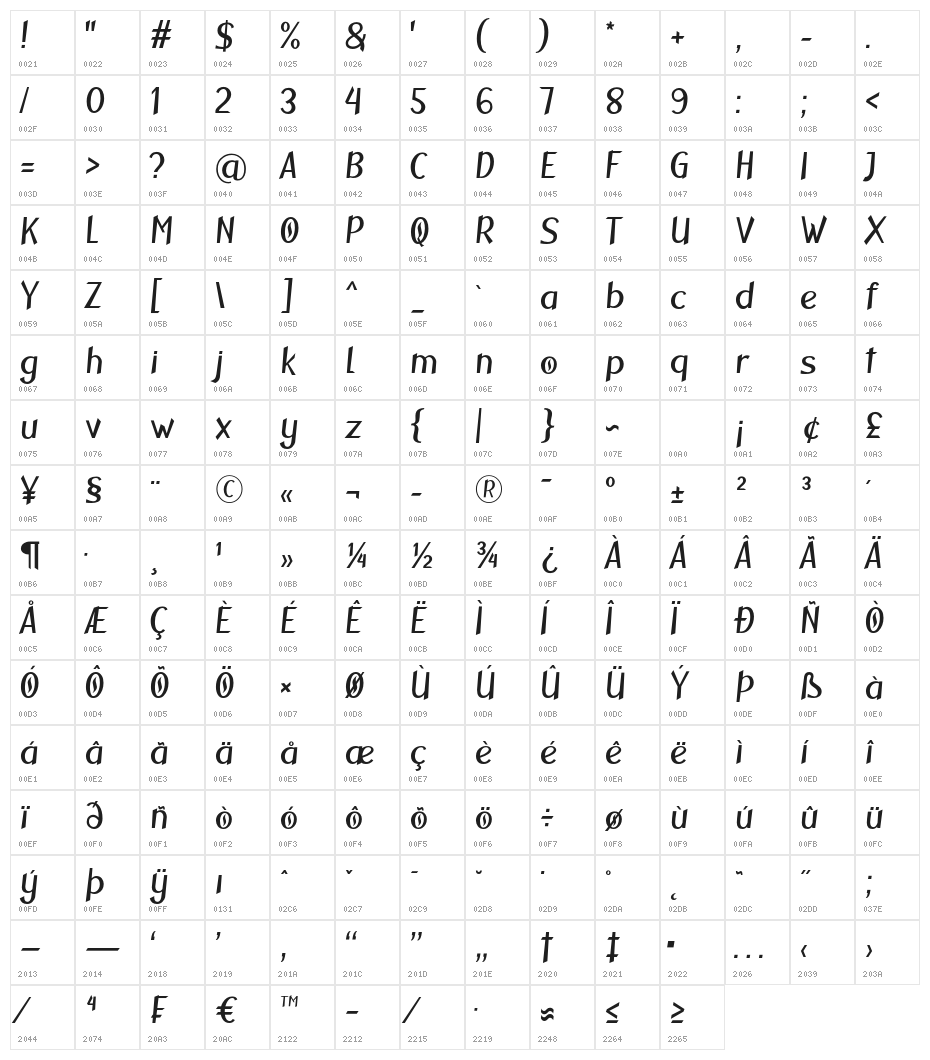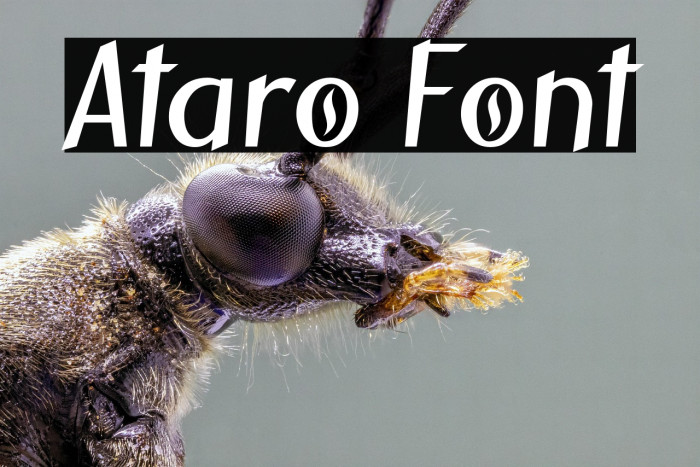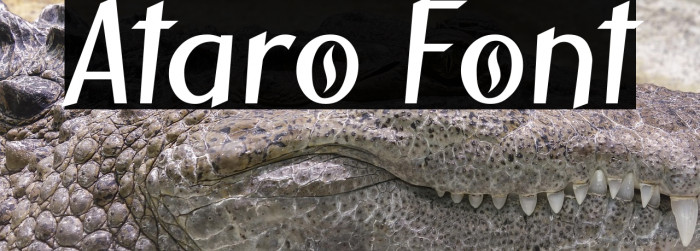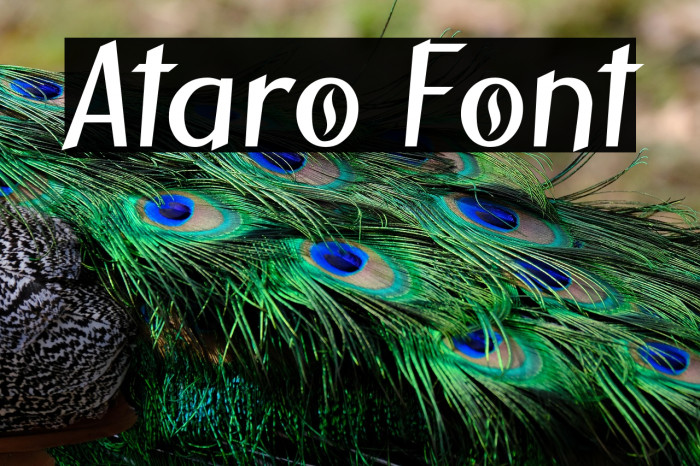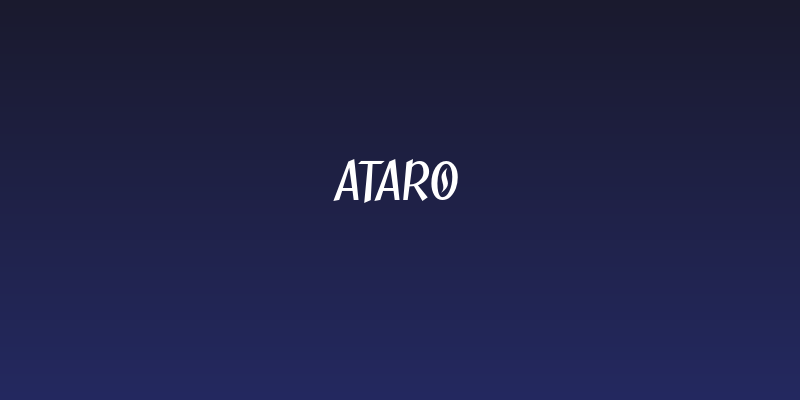
Ataro Font
Ataro Description
This font features a dynamic and slightly italicized style, characterized by its sharp, angular strokes and a forward-leaning posture. The uppercase letters exhibit a distinct flair, with unique elements such as the slashed zero and the diagonal cut on the letter 'Q'. The lowercase letters maintain a consistent style, with smooth curves and a slight slant that adds a sense of motion. The numerals are bold and clear, ensuring legibility, while the special characters are designed to match the overall aesthetic, providing a cohesive look across all glyphs. This font's design is both modern and expressive, making it suitable for a variety of creative applications.